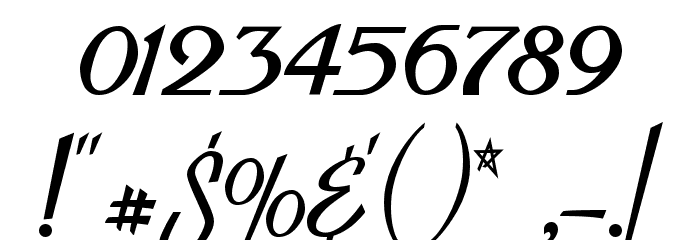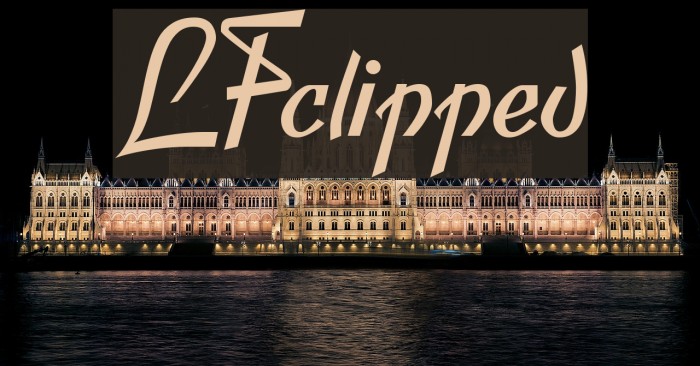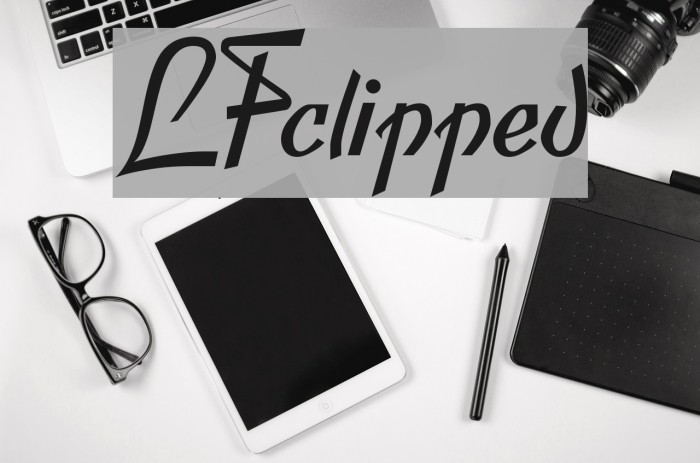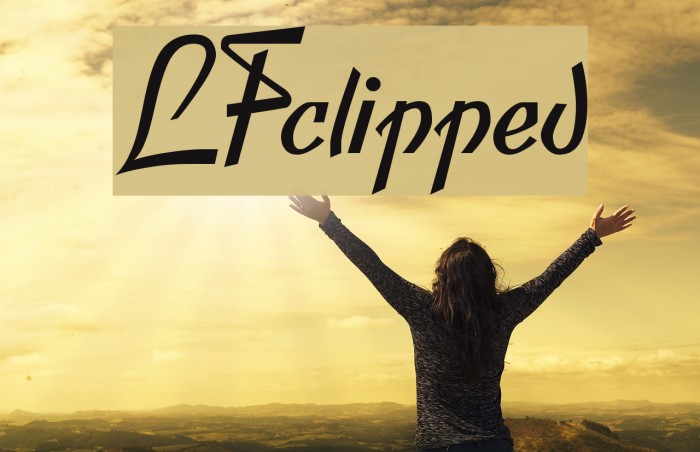
LFclipped Font
LFclipped Description
This font features a dynamic and flowing script style, characterized by its elegant and cursive letterforms. The uppercase letters exhibit a graceful, sweeping motion, while the lowercase letters maintain a consistent fluidity, enhancing the overall aesthetic. The numerals are designed with a similar flair, ensuring a cohesive look across all characters. Special characters are thoughtfully integrated, maintaining the font's artistic appeal. The strokes vary in thickness, adding a sense of movement and energy to the text. This font is ideal for projects that require a touch of sophistication and creativity.
| Proposed Projects | Ideal for wedding invitations, greeting cards, branding, and elegant logo designs. |